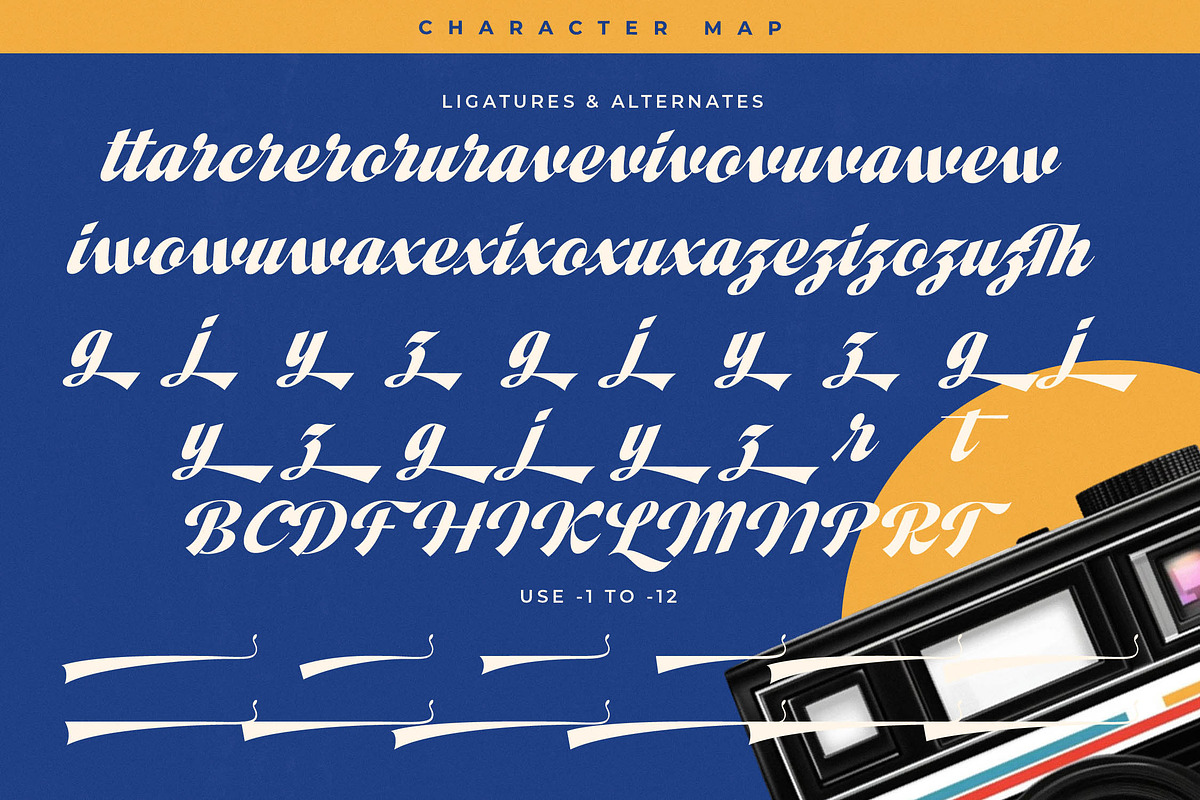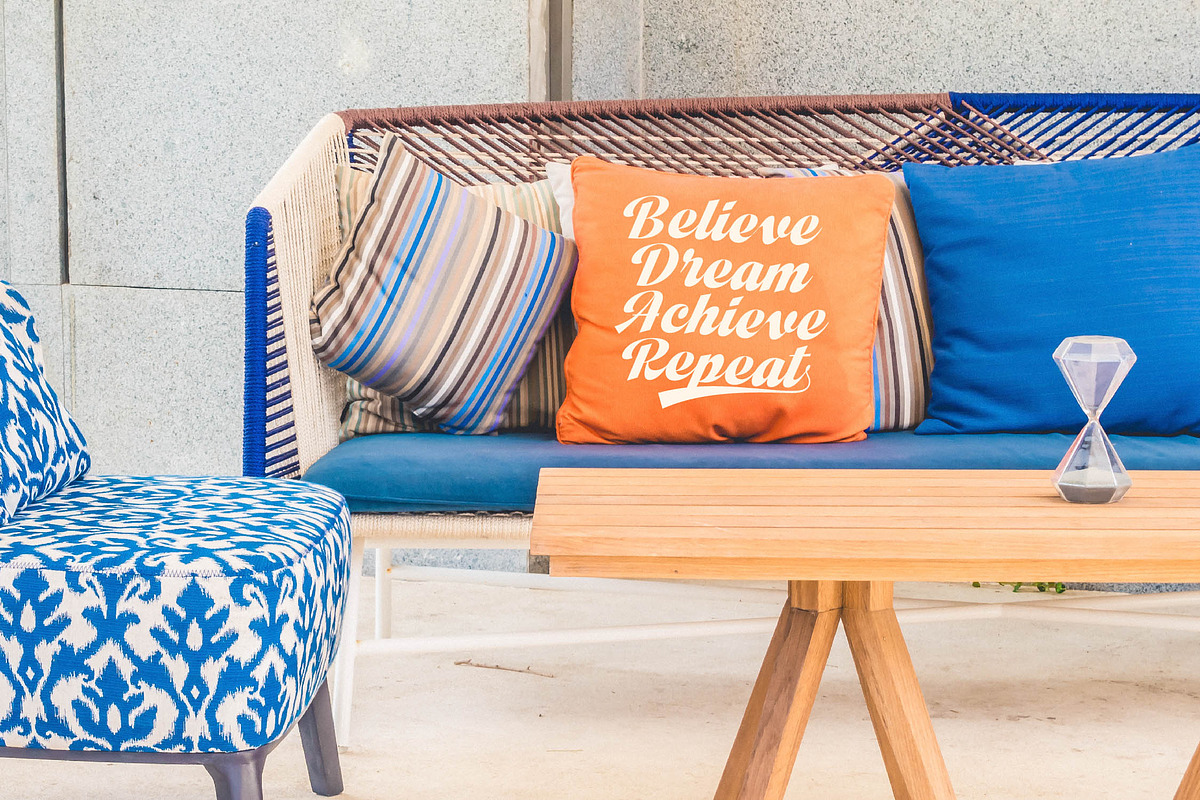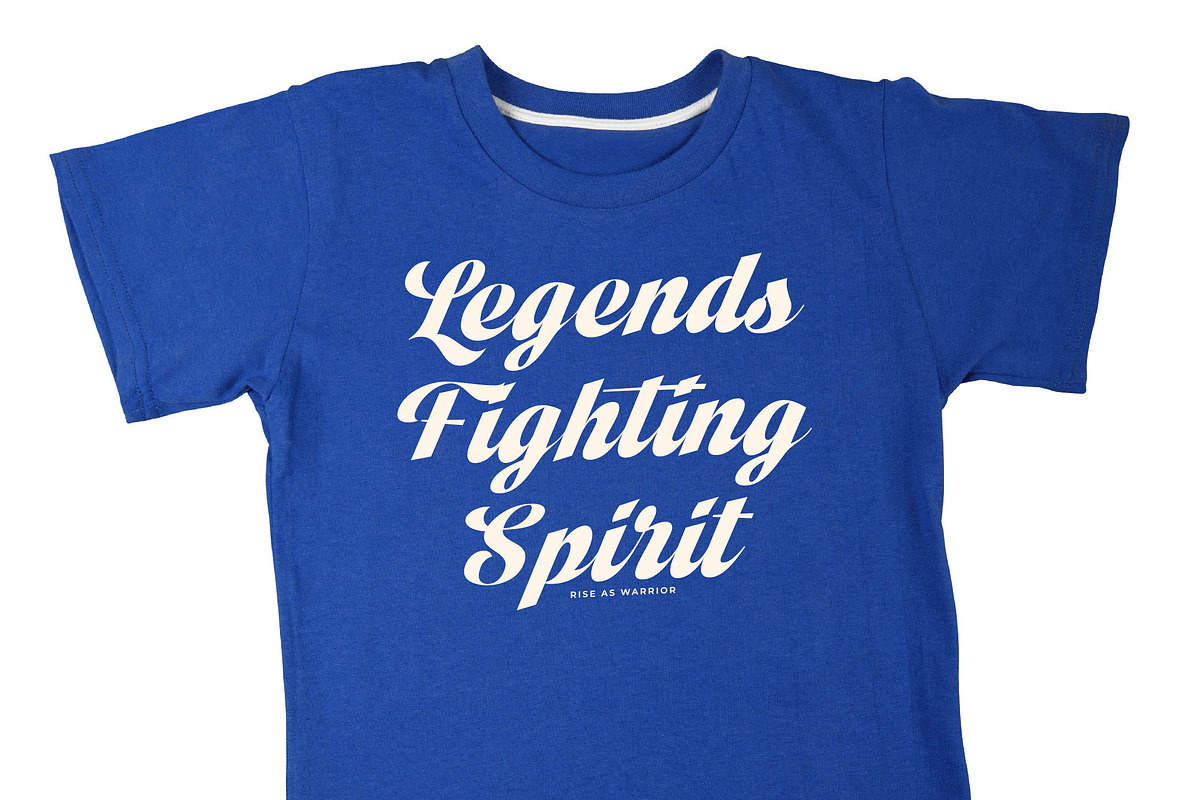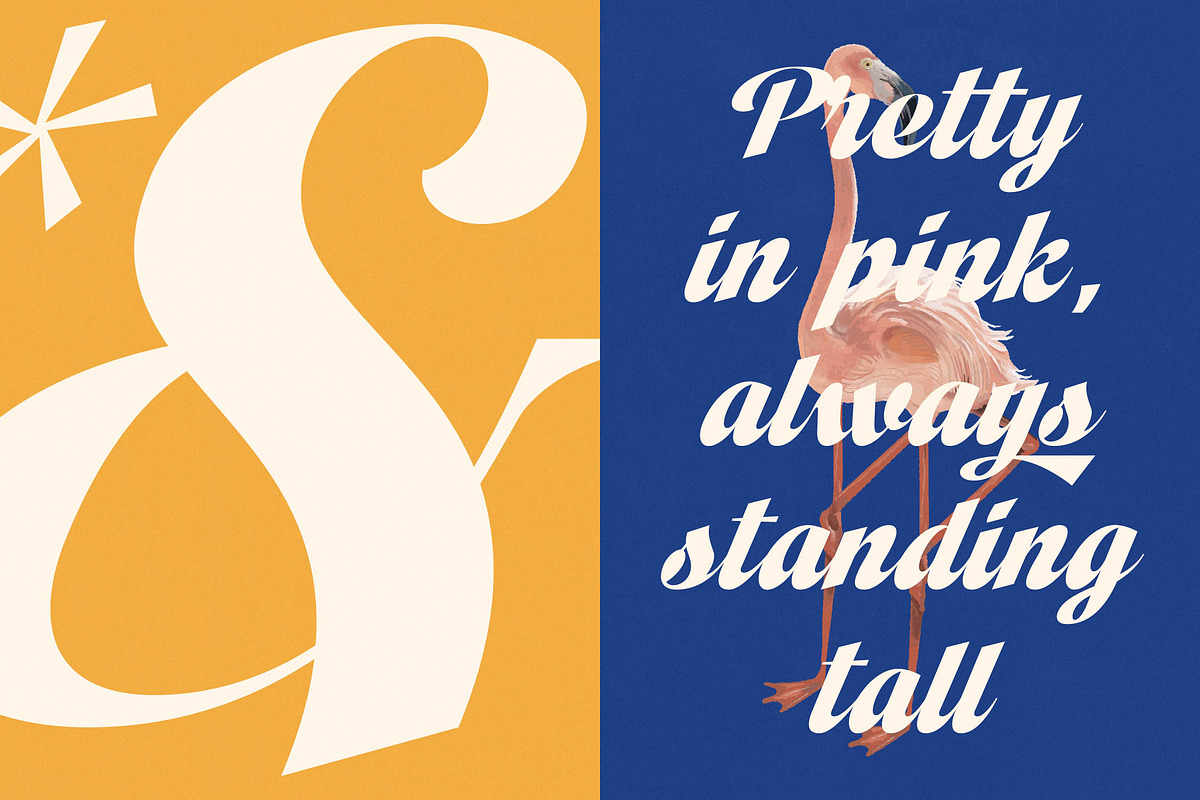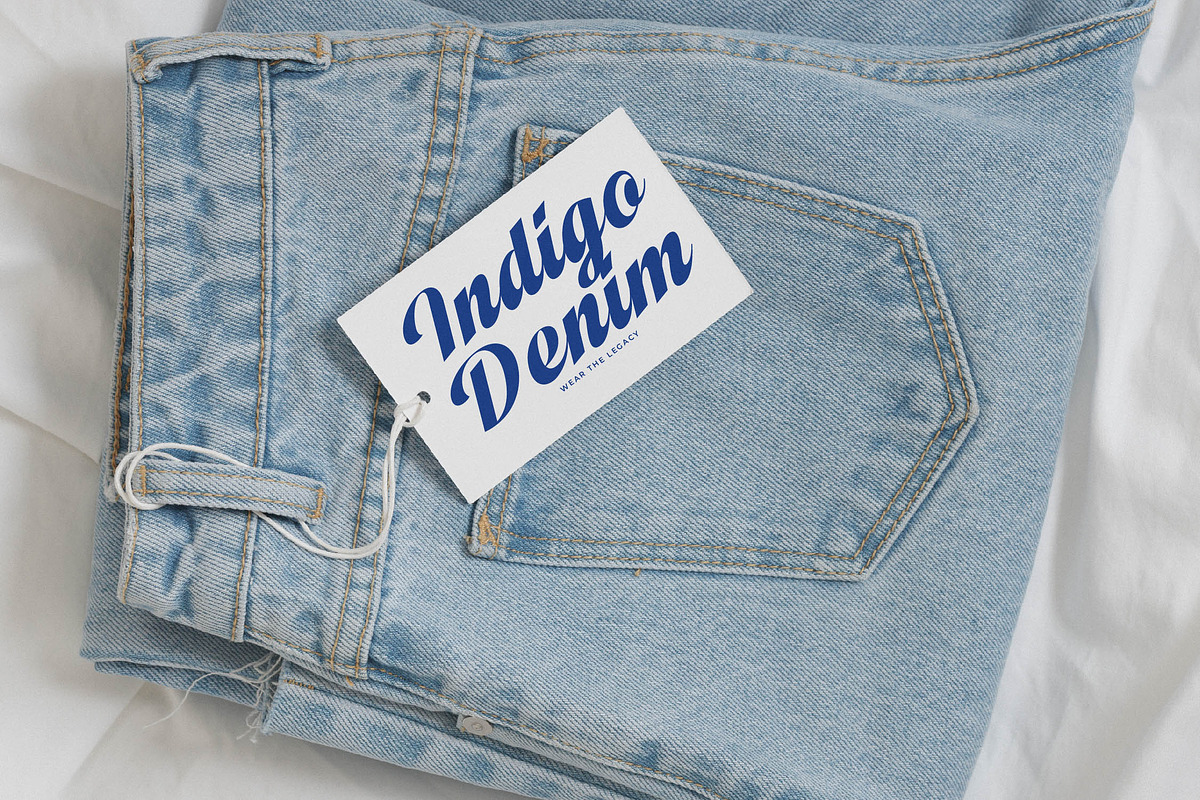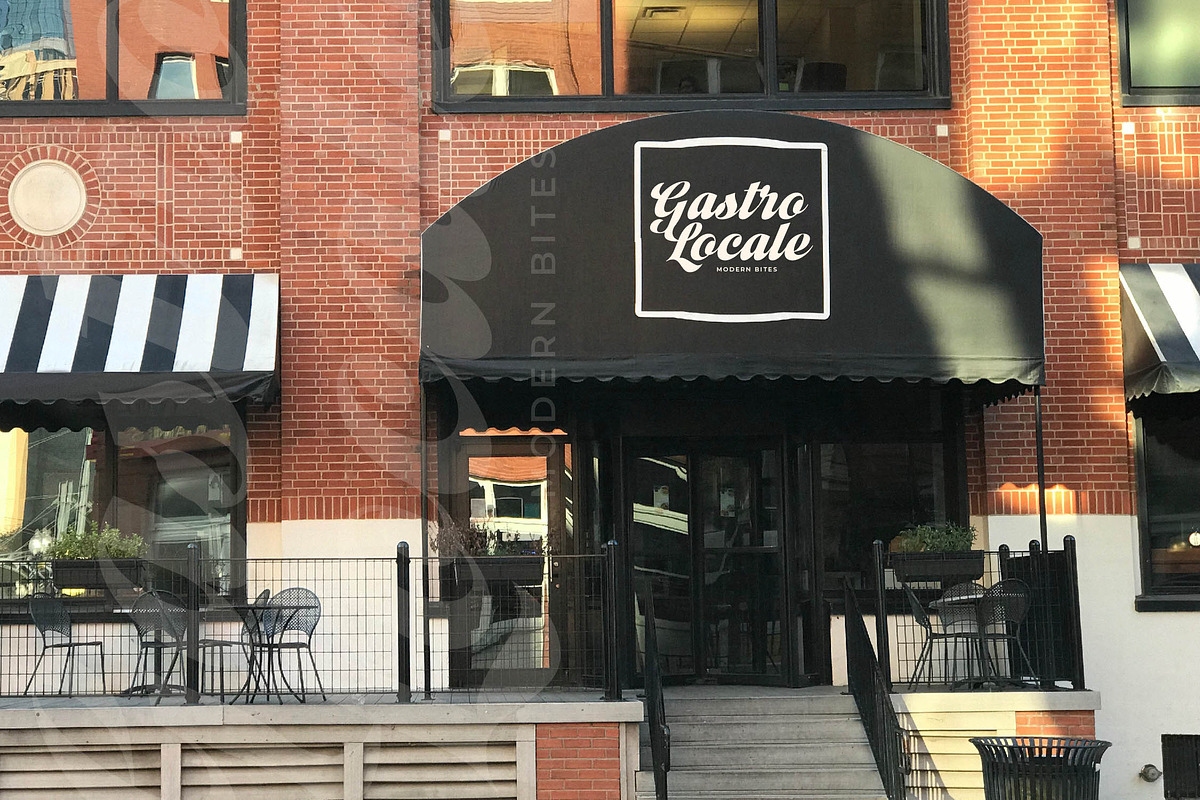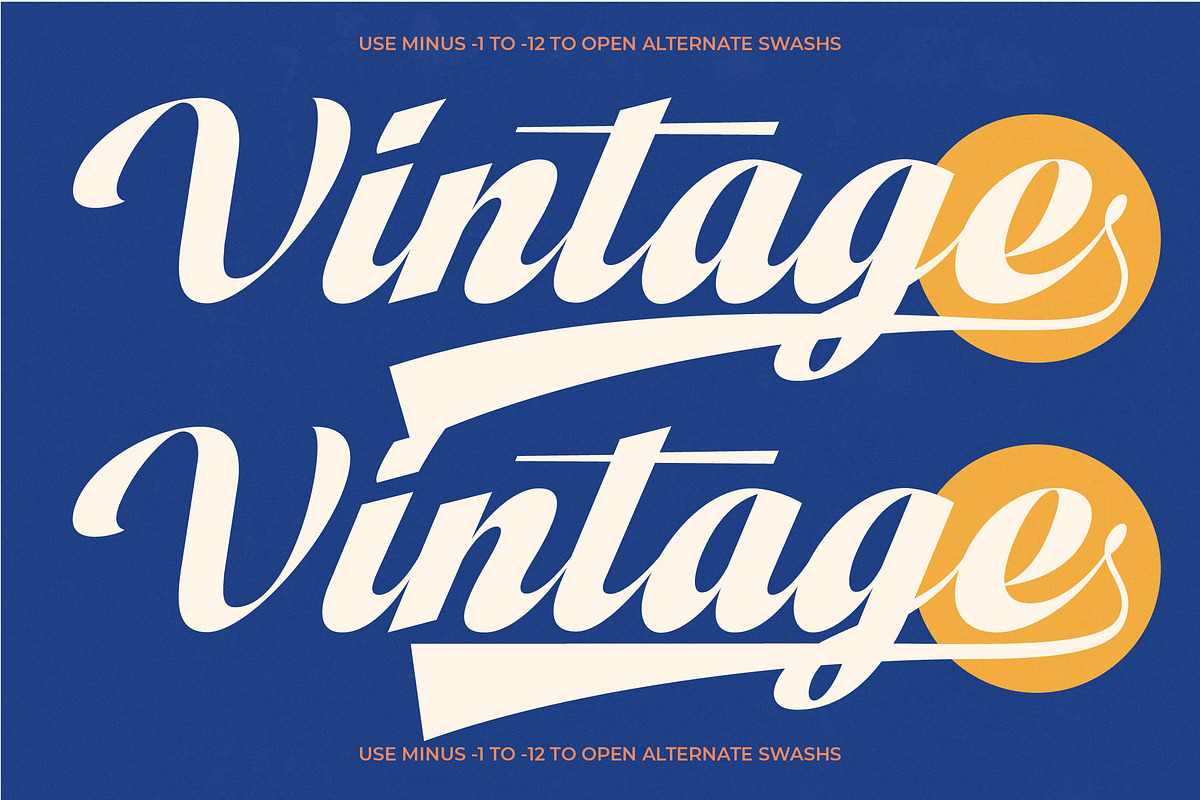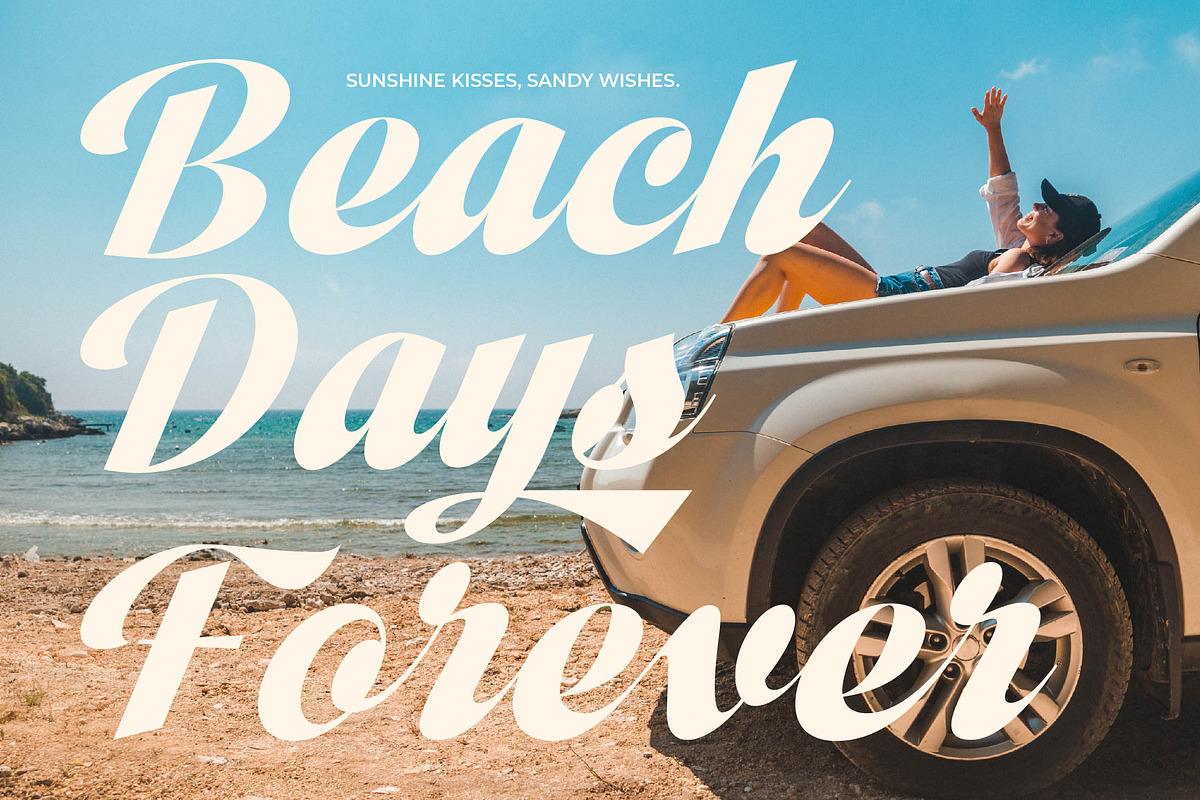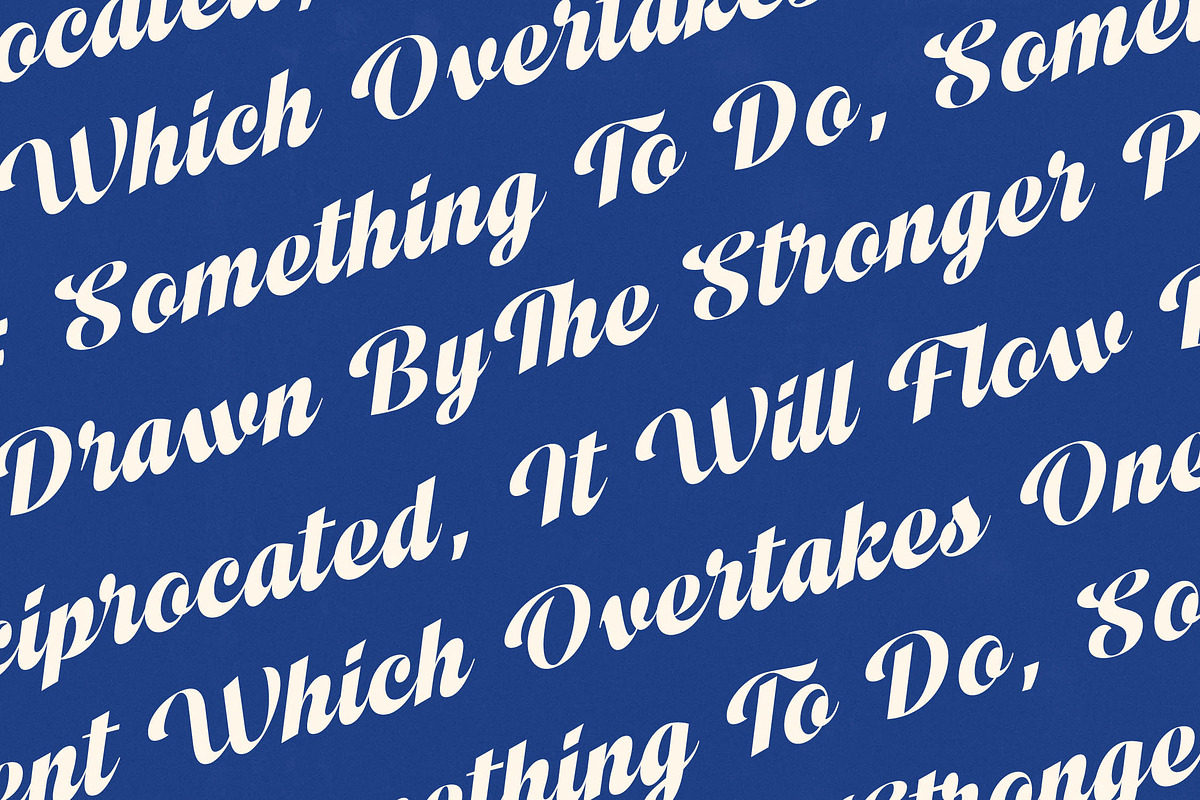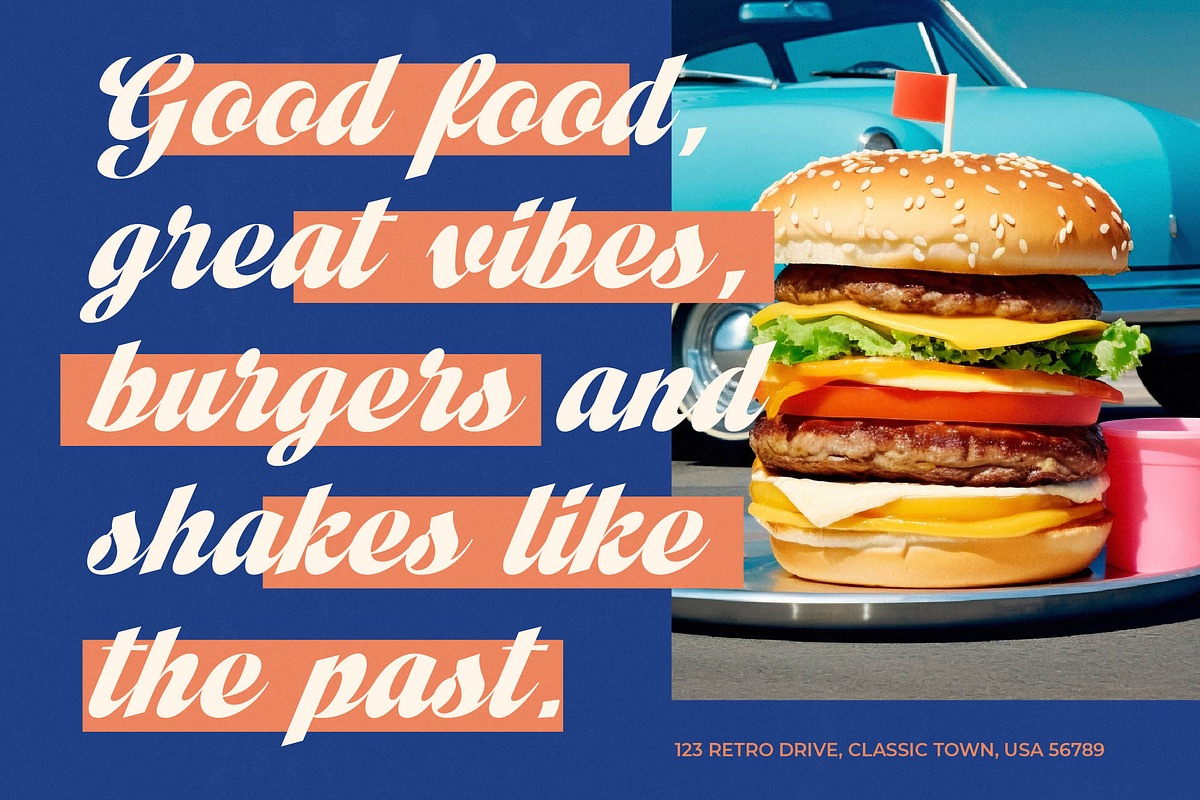
Vintage Charge Bold Retro Script
Step into a world of timeless energy with Vintage Charge, a powerhouse script designed to infuse your creative projects with an unmistakable sense of retro confidence. This typeface captures the soul of classic analog design while providing the versatility needed for the modern digital landscape.
Inspired by the high-octane aesthetics of 1970s sports branding and vintage film camera typography, this font evokes a sense of sun-drenched nostalgia and athletic precision. Its flowing lines and heavy weight tell a story of craftsmanship and enduring style that resonates across generations.
While it carries the weight of a modern serif display, this script delivers the sophistication of luxury typography through its balanced curves and high-contrast serif qualities. It functions as a high-performance editorial font that is engineered specifically for maximum branding impact in crowded marketplaces.
Aligning perfectly with the current modern serif trend, this typeface bridges the gap between traditional hand-lettering and contemporary editorial display fonts. It represents the pinnacle of character-driven typography, offering designers a unique tool to create standout visuals that feel both heritage-rich and trend-forward.
This font is the ultimate choice for high-impact logo design and comprehensive branding systems that require a bold, human touch. From striking packaging and sophisticated editorial spreads to curated wedding invitations and high-street fashion labels, it adapts seamlessly to any luxury or lifestyle context.
To ensure total creative freedom, the font is packed with 28 ligatures and 43 alternates, plus a suite of dynamic swashes for a truly custom look. It also features full multilingual support and a wide range of international characters, making it a global solution for any professional design project.
- Ligature 28 Alternate 43